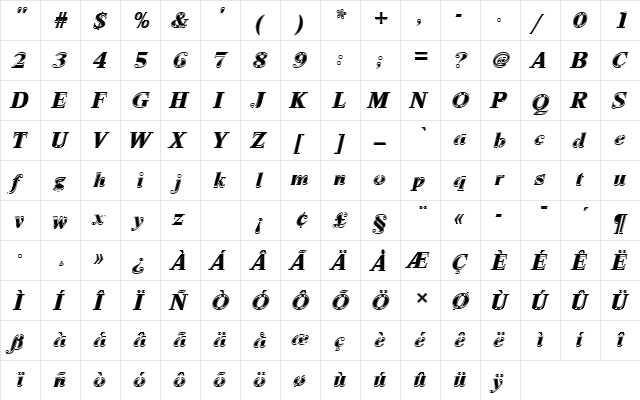
NimbusRomDExtBolItaIn1 Regular
Design Context for NimbusRomDExtBolItaIn1 Typeface
NimbusRomDExtBolItaIn1 is a composed and adaptable typeface that performs quietly and consistently across a wide range of design contexts.